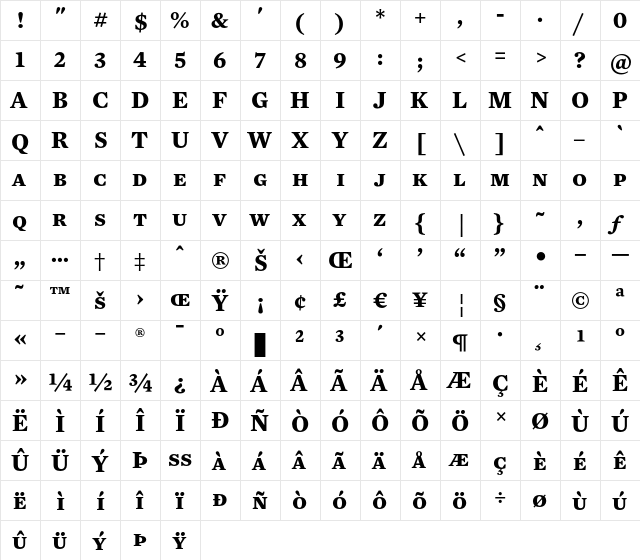
Mercury Text G4 Bold SC
Design Context for Mercury Text G4 Typeface
Mercury Text G4 takes a measured approach to typography — its balanced proportions and neutral character make it a reliable workhorse for both digital and print work. The heavy weight commands attention and anchors typographic hierarchies.